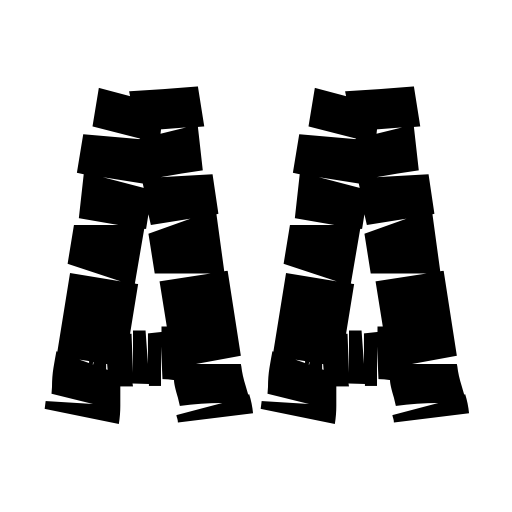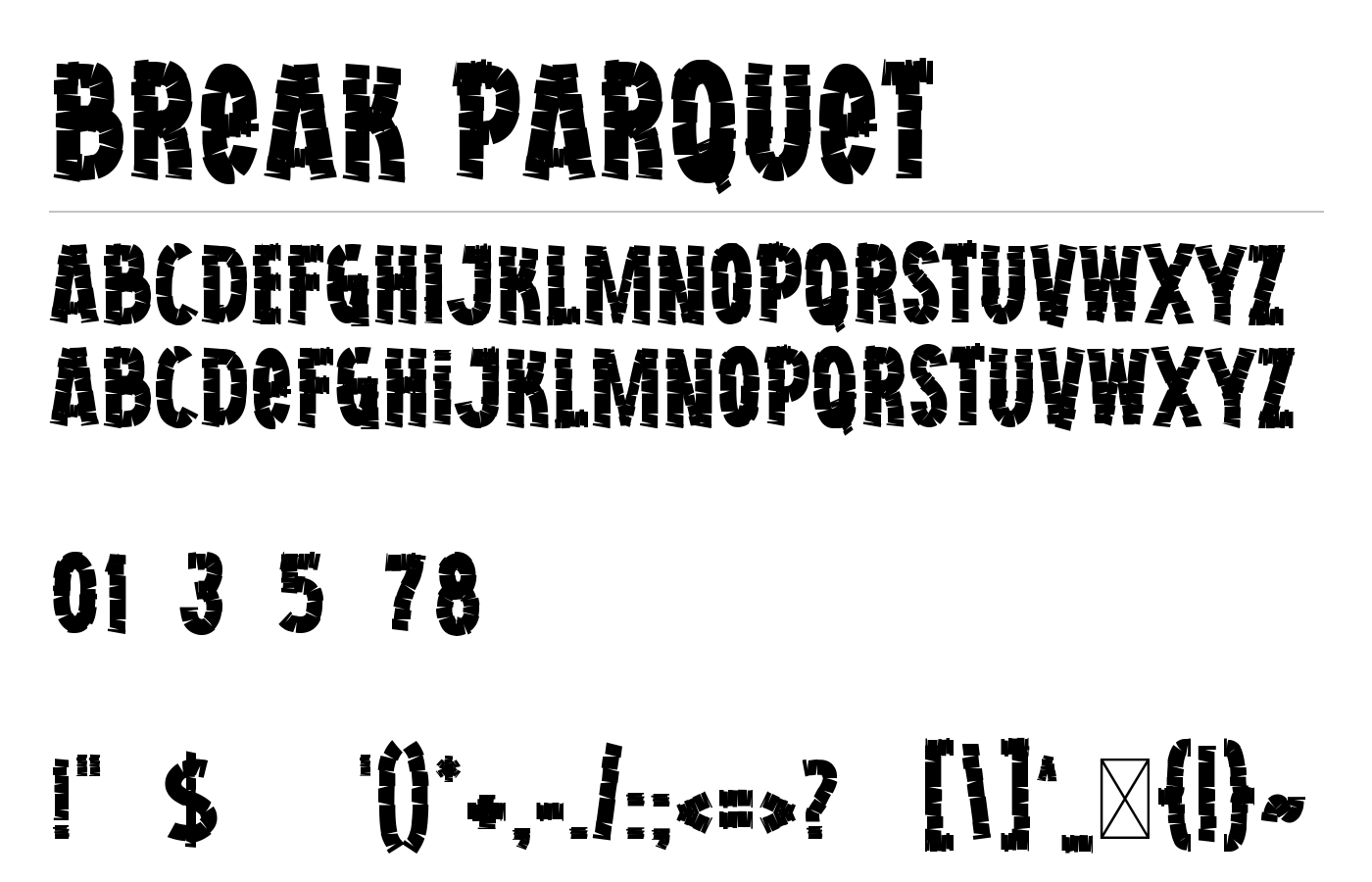
Break Parquet is a bold and edgy display font with a distressed, fragmented style that gives it a raw, dynamic feel. Its thick, irregular strokes and rugged texture make it perfect for attention-grabbing headlines and creative designs that want to convey energy and disruption. This font works well for posters, branding, and any project looking to add a bold urban or industrial vibe.
Break Parquet Font
About Break Parquet Font
| Font family | Break Parquet Font |
| Designer | Anang F & Malik Wsn | Gassstype© Studio 2021 |